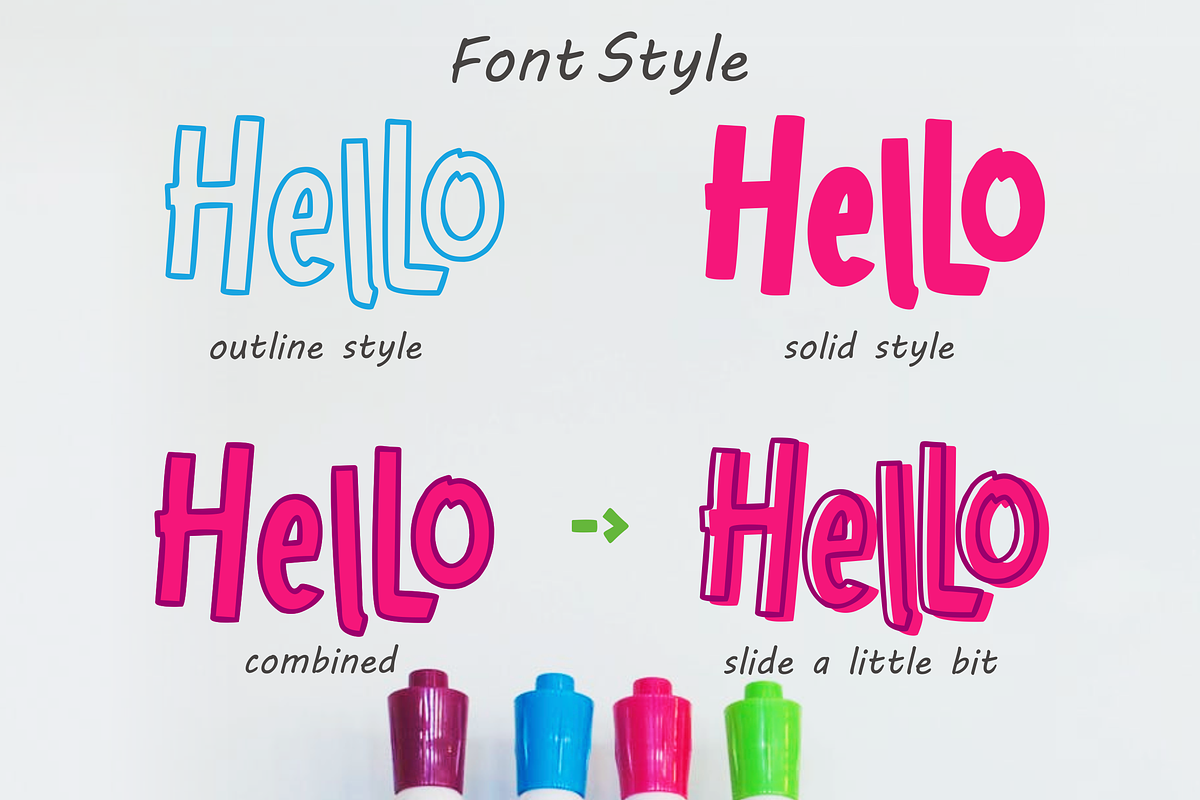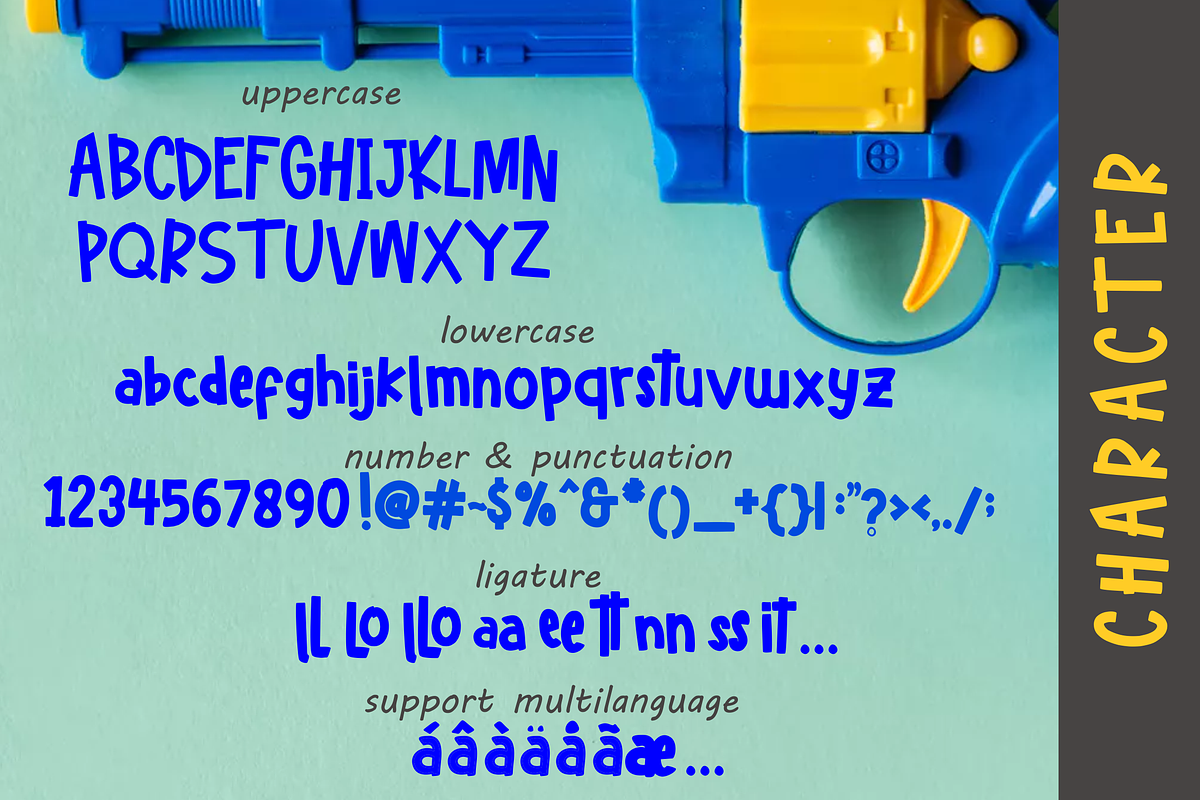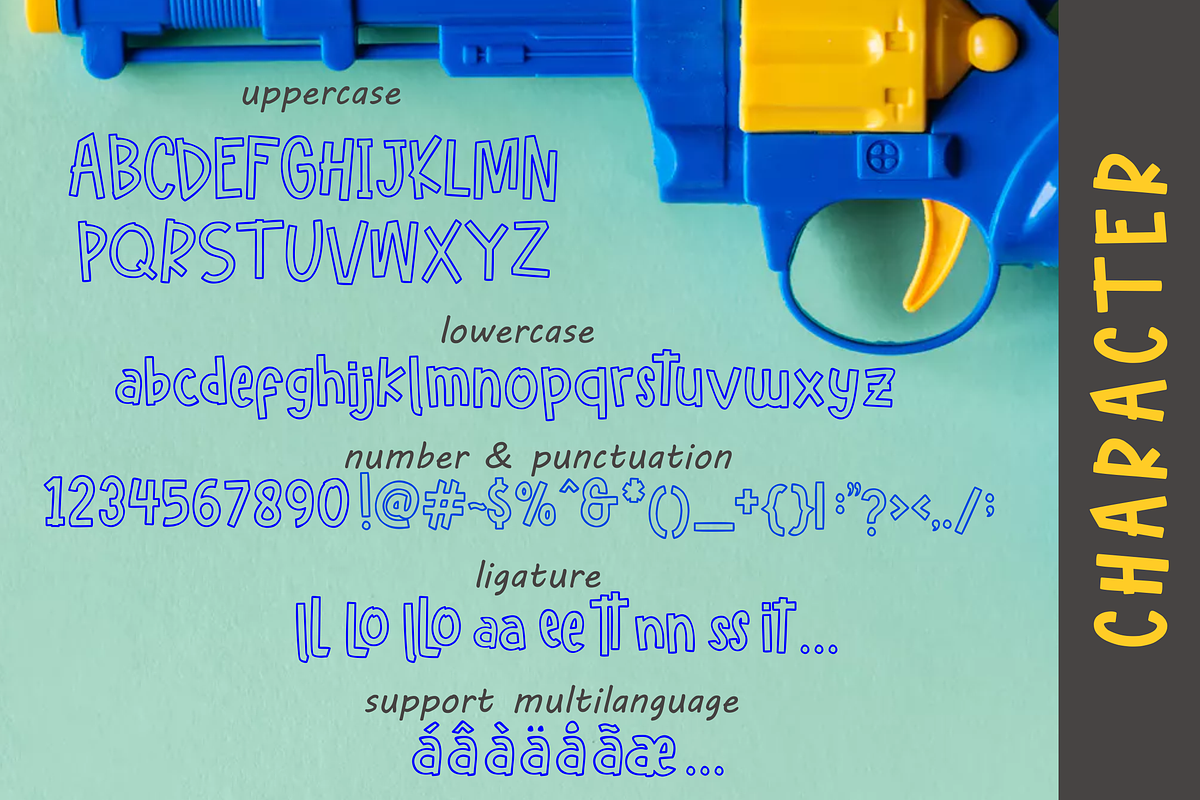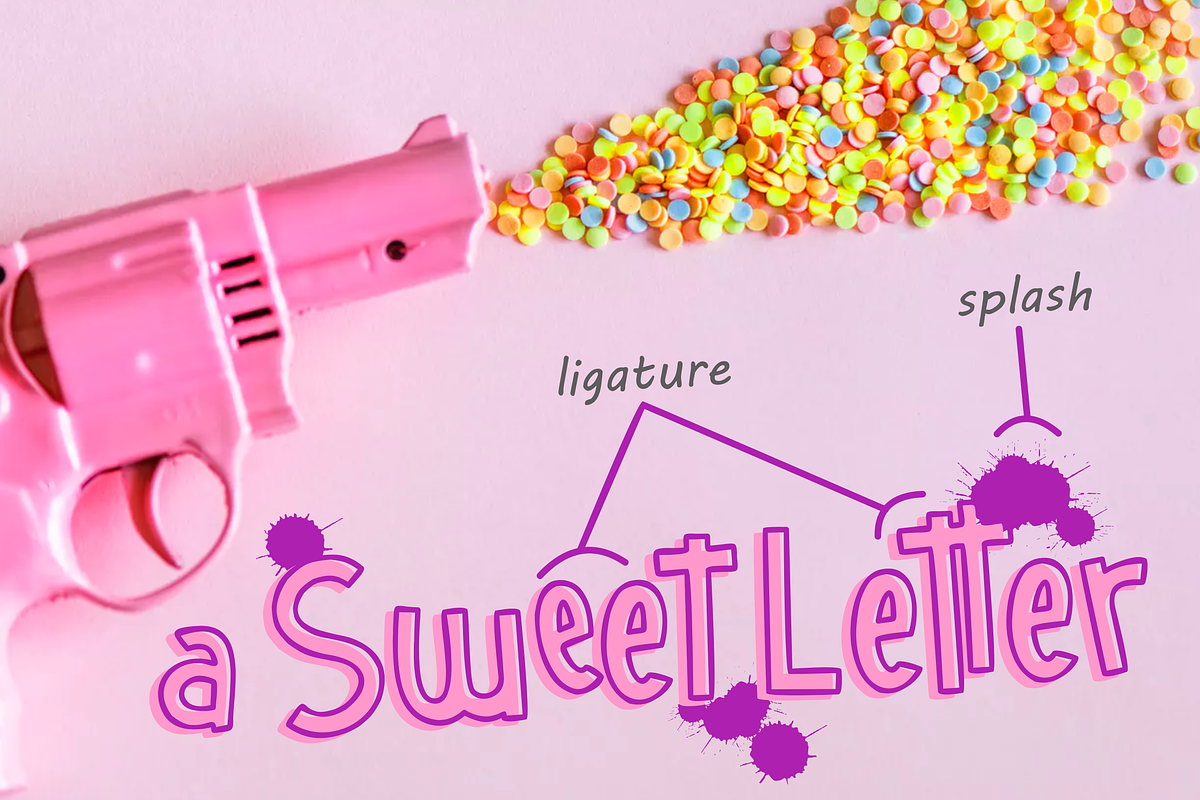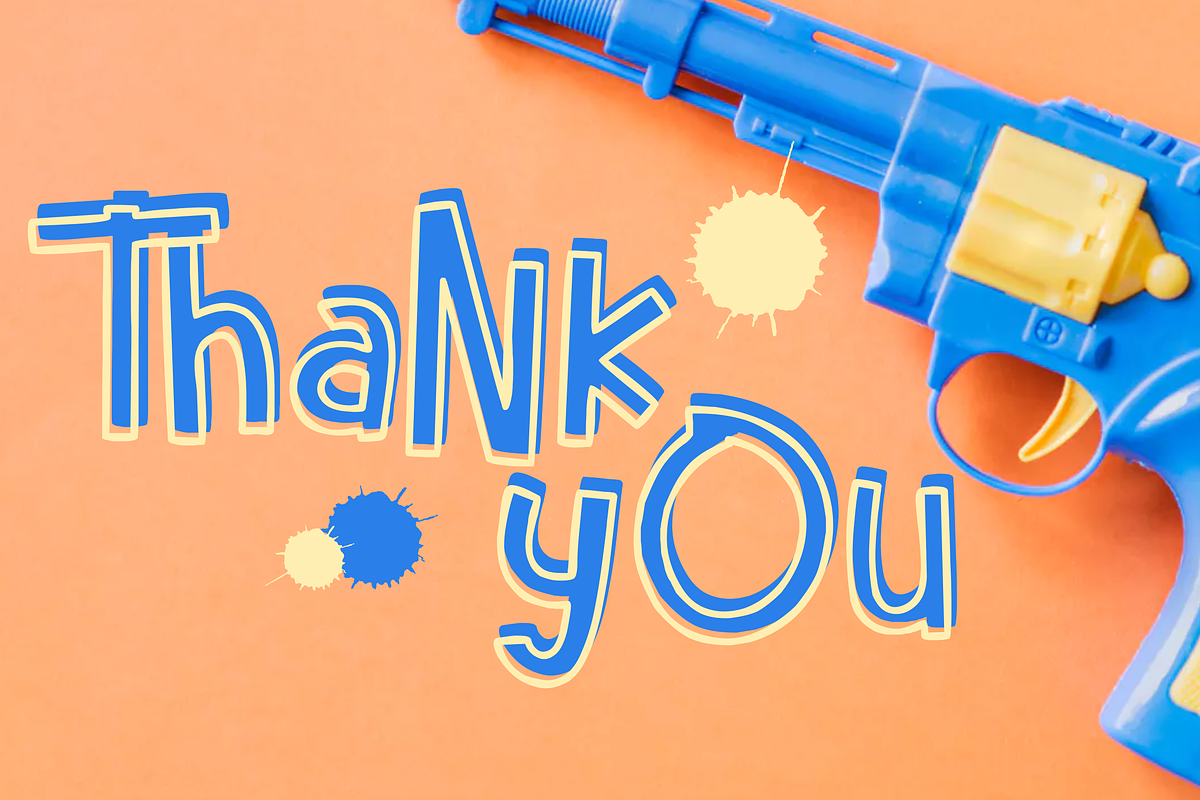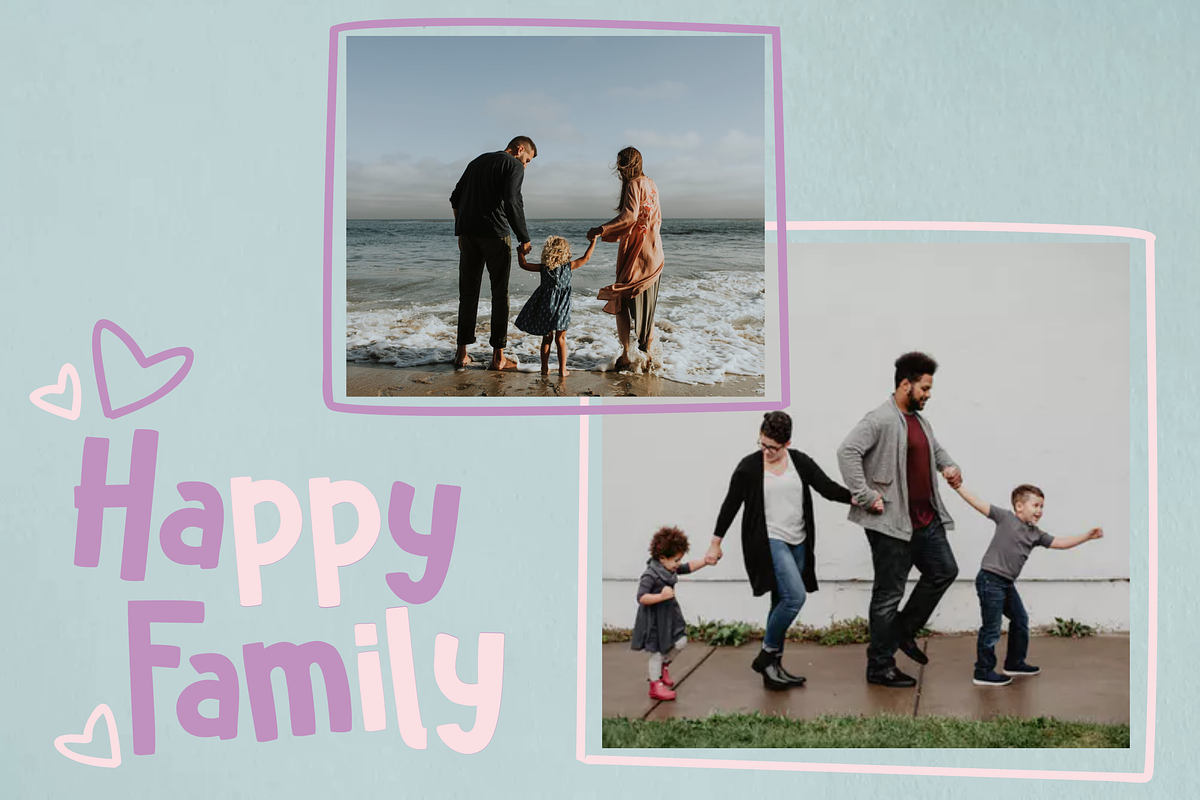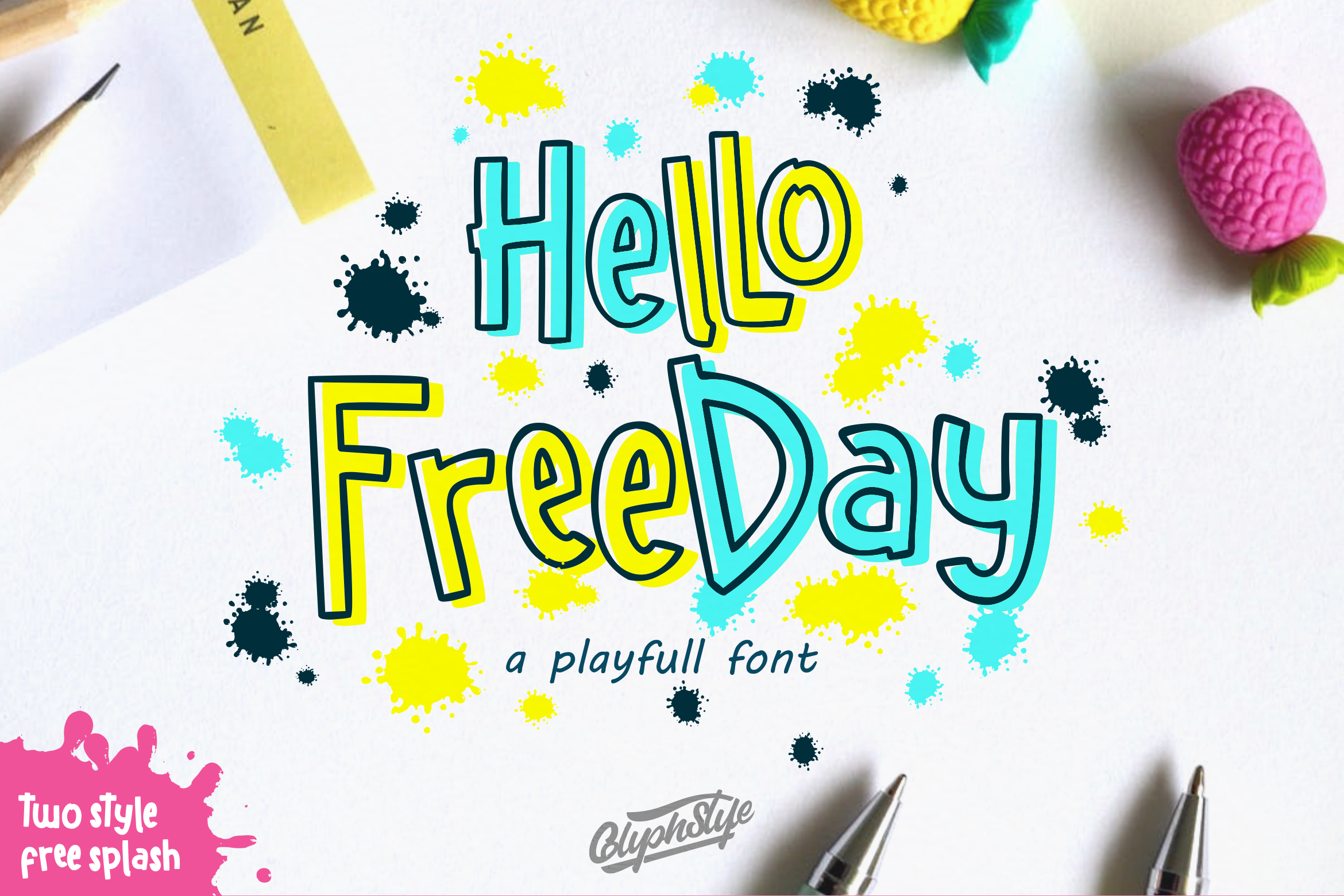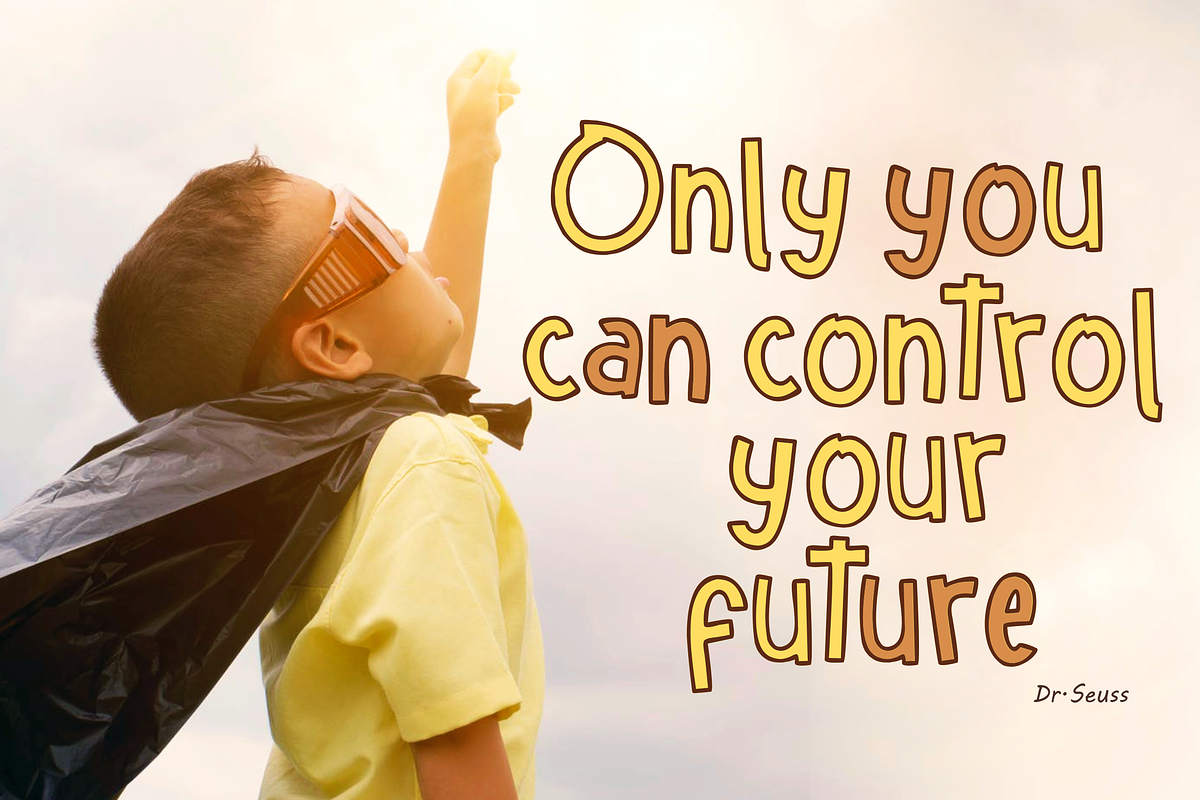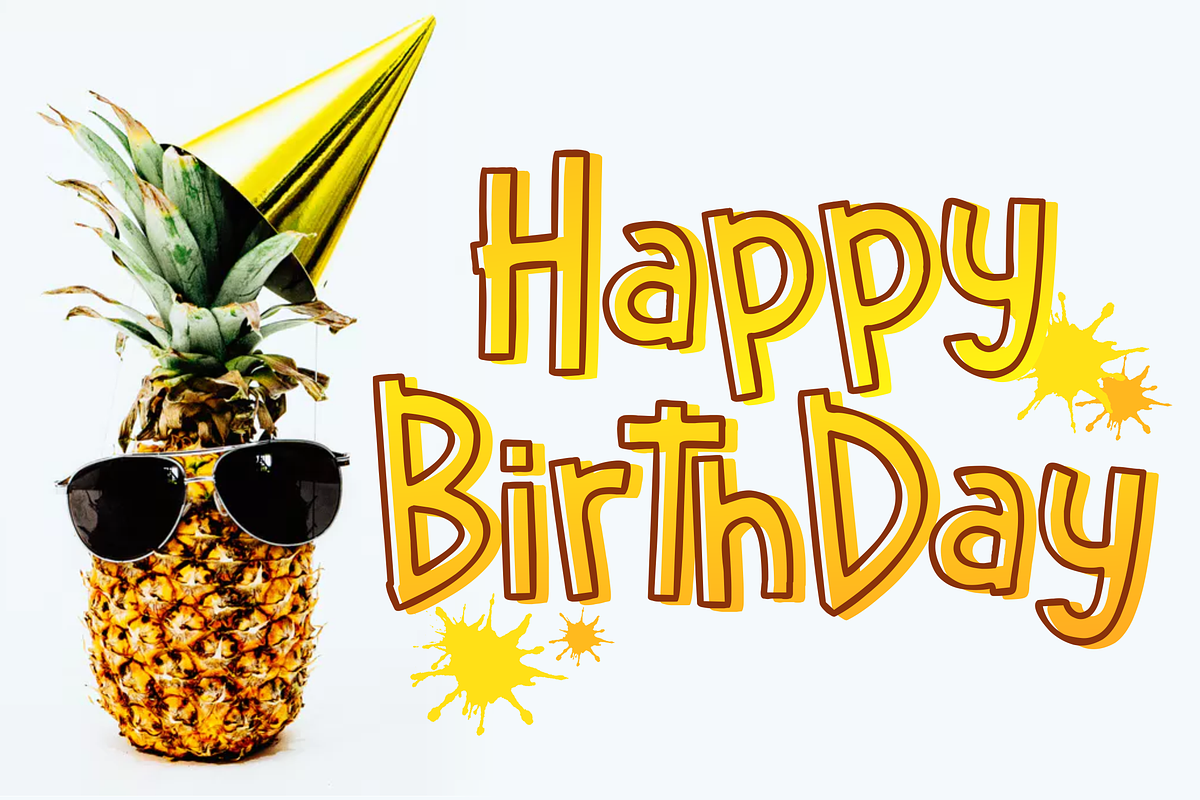
Hello freeday 2 Style font
Hello Freeday is one font with two styles that is very cheerful and funny. consists of Hello Freeday outline and Hello Freeday (solid). This very funny font is perfect for funny or child-themed design projects.
Hello Freeday is perfect for tshirt, logos, wedding designs, social media posts, advertisements, business cards, cover magazines, labels, photography, watermarks, invitations, stationery, and any projects that require cheerful writing tastes in two styles.
with this font you do not need to work twice to make an outline of letters, because this font provides 2 styles
Font feature
Uppercase, Lowercase, Numerals & Punctuations, Ligature, Multilanguage